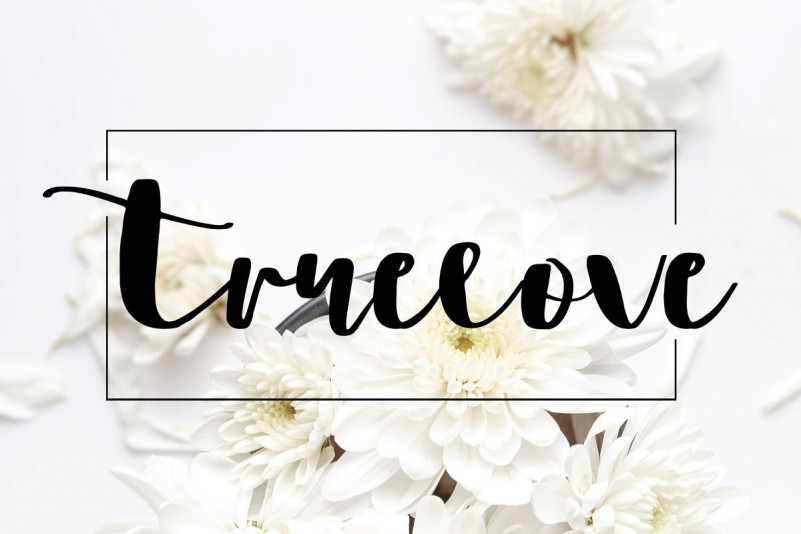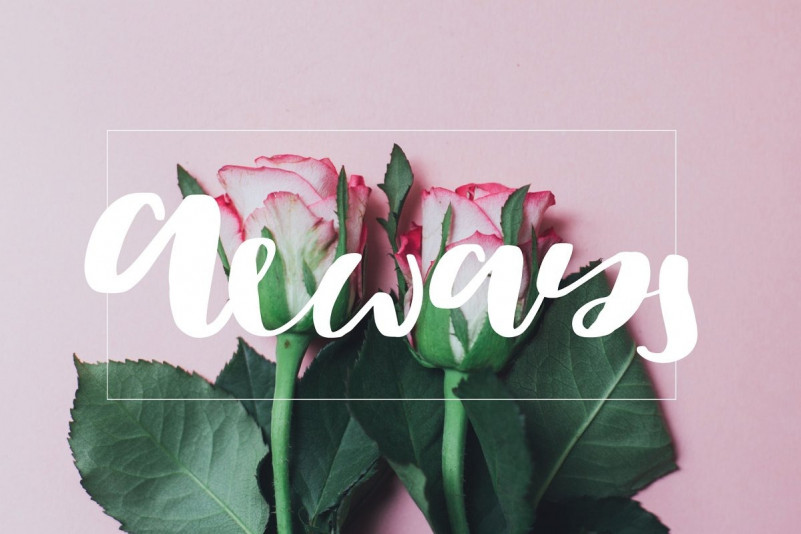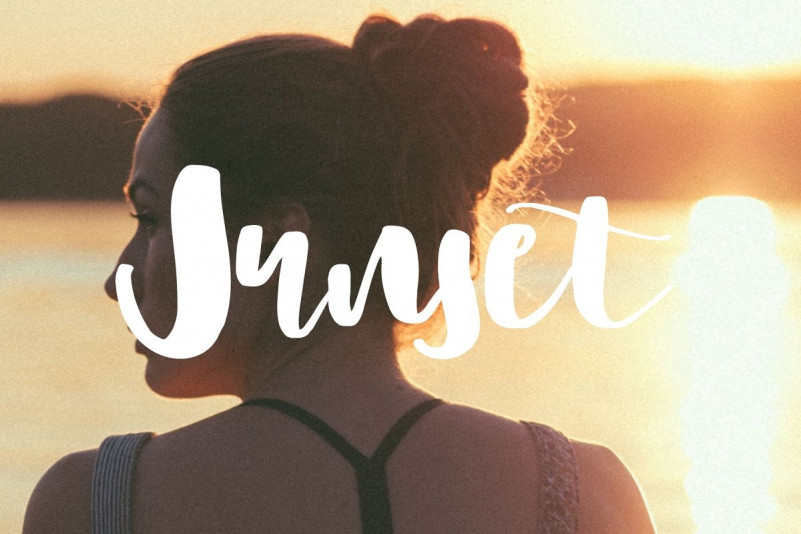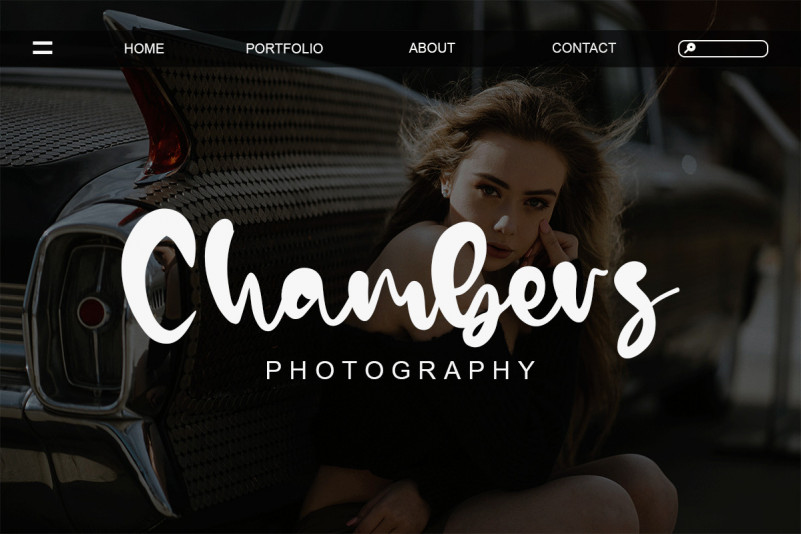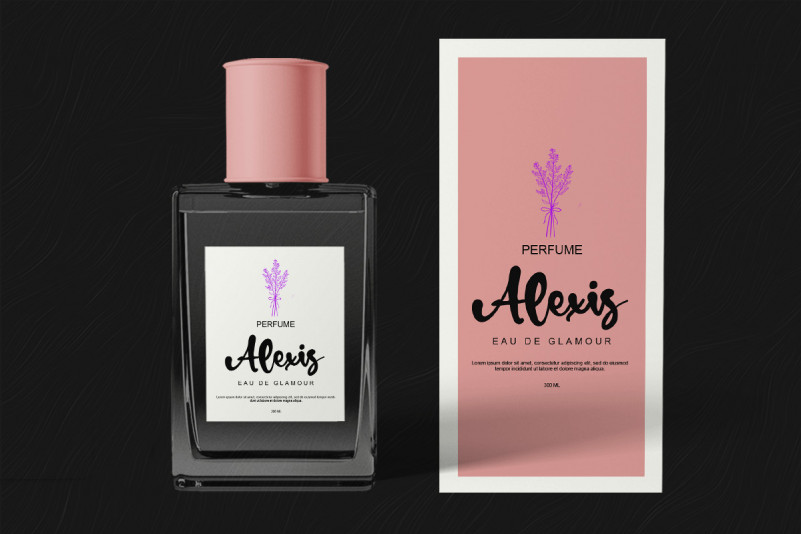
Cleverlands Handwritten Font
Unique and fresh handwritten font,
Hopefully it can help you in making writing on brands, posters, logos, business cards and other ad templates.